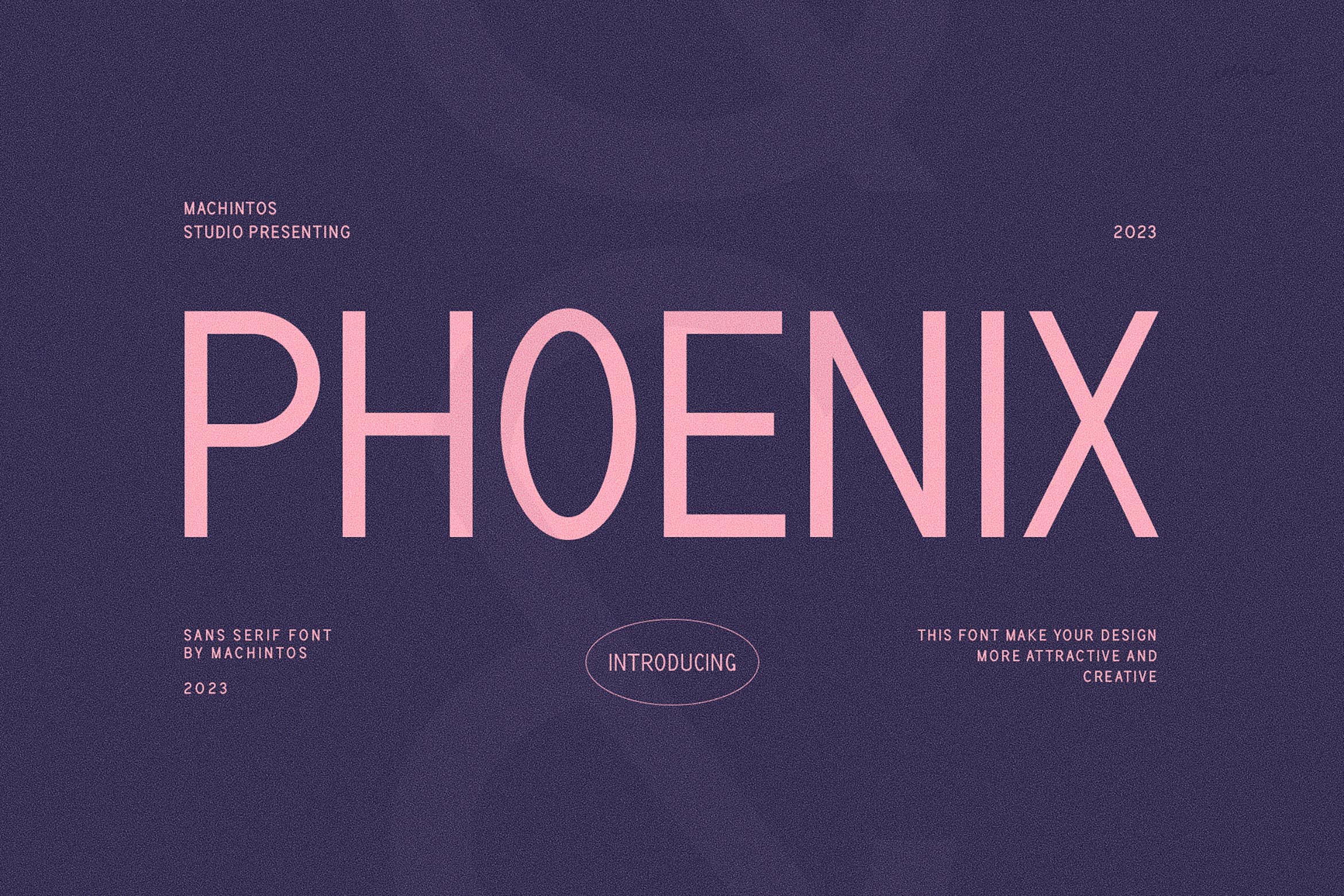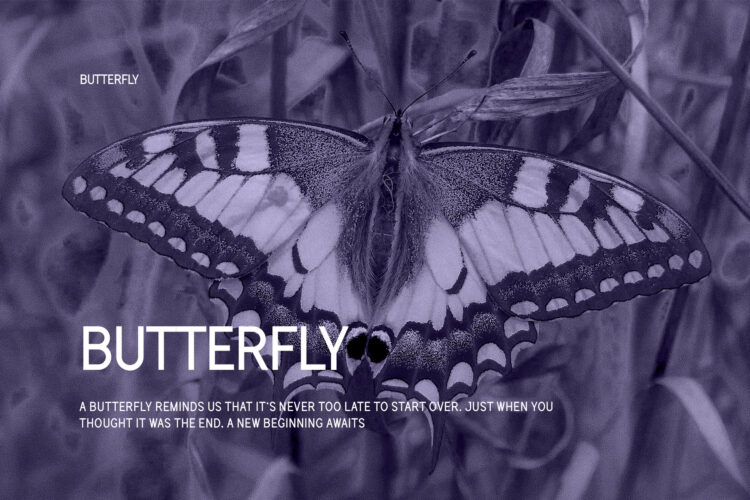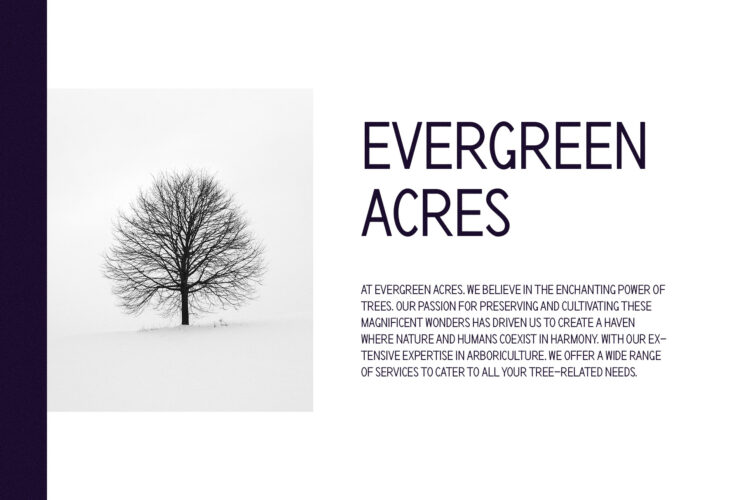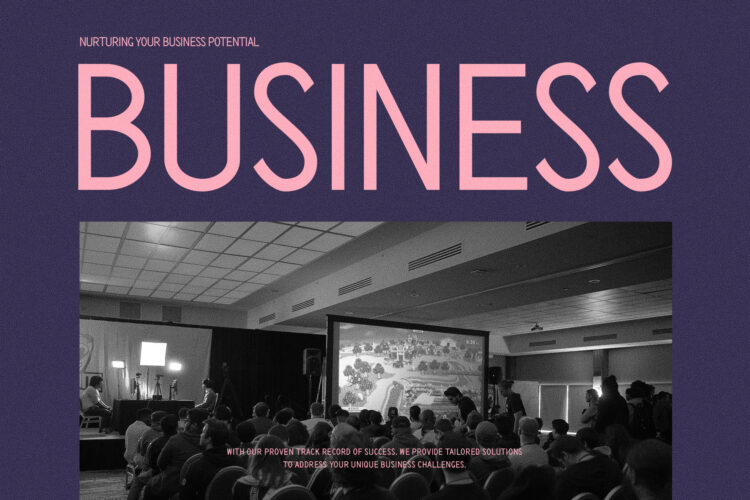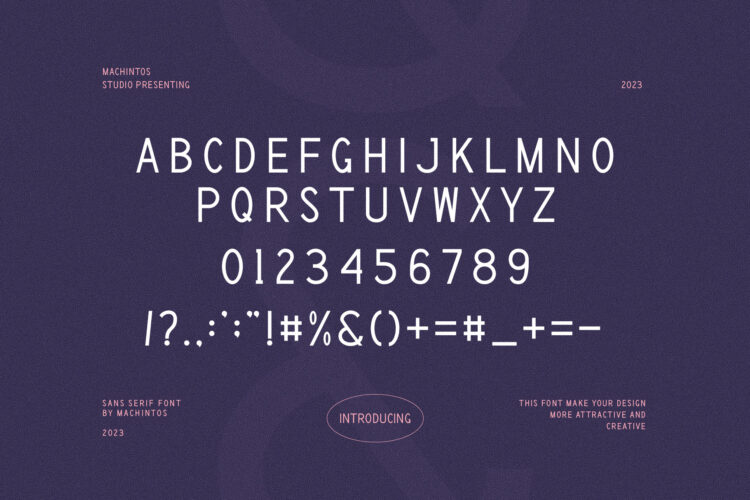
Introducing our new Phoenix, modern sans serif font with elegant style this is perfect for branding, logos, invitation, magazines, product packaging and more.
Phoenix – Modern Sans Serif